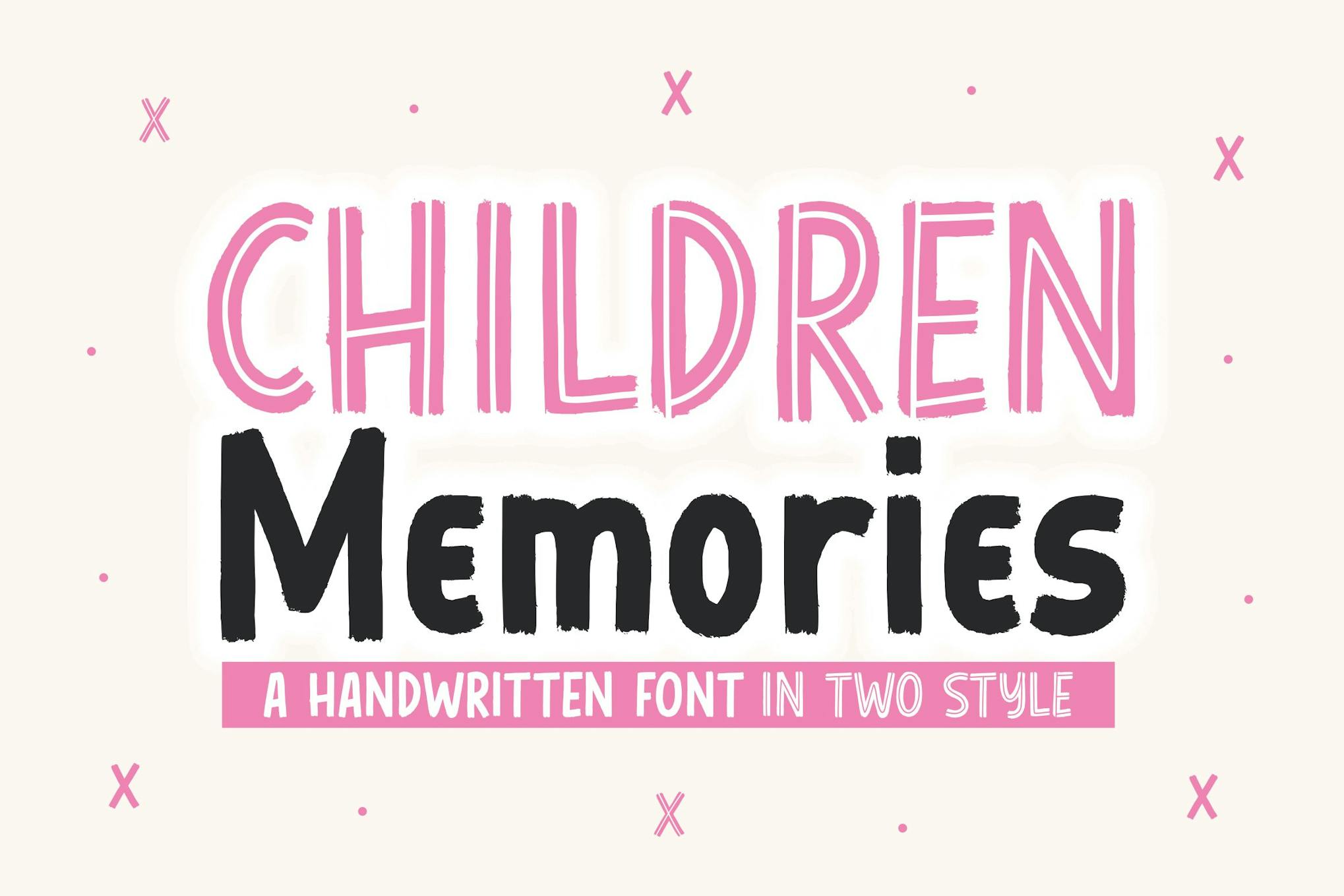
AL - Children Memories Font
AL - Children Memories Font Free Download is a charming and whimsical typeface that captures the innocence and joy of childhood. While you can download this font for free for testing purposes, you must purchase this font for commercial use to truly unlock its potential. This versatile font is perfect for a wide range of creative projects, including children’s book illustrations, school projects, greeting cards, nursery decor, and fun social media posts. What makes this font so exciting is its genuine, hand-drawn feel and slightly imperfect characters, which bring a sense of nostalgia and heartfelt warmth to any design. The AL - Children Memories font family includes a range of styles, such as Regular, Bold, and a unique set of doodles and icons, providing a complete and flexible design solution.
This isn’t just a font; it’s a feeling. The design of AL - Children Memories is inspired by a child's handwriting, with its friendly, rounded edges and playful letterforms. Its distinctive, approachable look ensures that your designs feel personal, authentic, and full of positive energy. Whether you're a writer creating a title for a storybook, a designer crafting a whimsical logo, or a parent making personalized gifts, this font provides the perfect foundation. The hand-drawn aesthetic adds a layer of warmth and humanity that makes your work feel truly unique and memorable. It’s a font that works beautifully for both titles and short blocks of text, maintaining its joyful character at any size.
The versatility of the AL - Children Memories family is one of its greatest strengths. You can use the regular weight for a soft, friendly feel and the bold weight for headlines that stand out with a bit more confidence. The included doodles and icons are a fantastic bonus, allowing you to add playful, custom elements to your designs without needing to search for extra graphics. This flexibility makes it an invaluable asset for designers who need to create custom content that resonates with a sense of wonder and childlike creativity. It's a font that works hard, delivering a look that is both nostalgic and highly relevant for modern, heartwarming designs.